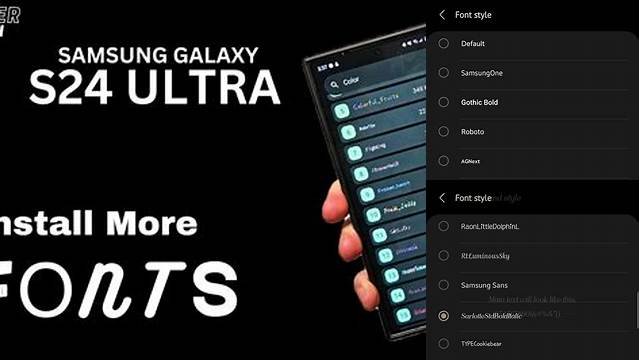
Best Fonts For Your Samsung S24 Ultra
Hey guys! So, you've just snagged the awesome Samsung S24 Ultra, and you're probably wondering how to make it truly yours. Beyond the killer camera and blazing-fast processor, one of the coolest ways to personalize your device is by changing the fonts. Yeah, that's right, the way your text looks on screen can totally change the vibe of your phone. We're talking about everything from your home screen icons to your text messages. The S24 Ultra, being a Samsung device, offers some pretty neat built-in options, and it also opens the door to even more customization if you know where to look. Think about it – a sleek, minimalist font can make your phone feel super professional, while a fun, quirky one can add a touch of personality. It’s all about setting the mood and making your daily interactions with your phone a little more enjoyable. Let's dive deep into finding the best fonts for your Samsung S24 Ultra and how to make them work for you. We'll explore the official Samsung Galaxy Store, some cool third-party apps, and even touch on how to install custom fonts if you're feeling a bit more adventurous. Get ready to give your S24 Ultra a fresh new look that perfectly matches your style!
Diving into Samsung's Built-in Font Options
Alright, let's start with the basics, guys. Your Samsung S24 Ultra comes with a pretty decent selection of fonts right out of the box. These are the easiest ones to access and are generally well-optimized for the display, so you don't have to worry about weird spacing or readability issues. To find these, you’ll typically navigate to Settings > Display > Font size and style. From there, you can tap on 'Font style'. You'll see a list of pre-installed fonts, and usually, there's a good variety to choose from. We're talking about classics like the default Samsung font, which is clean and modern, to more stylized options like Rosemary, Cool Jazz, or even the ever-popular Gothic. The great thing about these built-in fonts is that they are guaranteed to work seamlessly with your phone's interface. They're designed by Samsung themselves, so they integrate perfectly with One UI, meaning no pesky compatibility problems. Plus, they usually offer a good balance between aesthetics and readability, which is super important when you're spending hours on your phone. Exploring these options is a fantastic starting point for anyone wanting to tweak their S24 Ultra's look without venturing into more complex territory. Take some time to cycle through them – you might be surprised by how much a simple font change can refresh your entire user experience. Remember, the goal is to find a font that not only looks good to you but also makes reading texts, emails, and browsing the web a comfortable experience.
Exploring the Samsung Galaxy Store for More Fonts
Finding Free and Premium Font Delights
When you're scrolling through the Galaxy Store looking for the best fonts for your Samsung S24 Ultra, you'll notice a mix of free and paid options. It's awesome that Samsung offers so many free fonts – seriously, you can totally change up your phone's look without spending a dime. These free fonts are often just as stylish and well-designed as their premium counterparts. Look out for fonts with names that suggest their style, like 'Modern Sans' for a clean look, or 'Vintage Script' for something more classic. On the flip side, the premium fonts can sometimes offer that extra polish or unique design that’s worth the small investment. Think of them as a small treat for your phone! If you’re someone who likes to switch up your style often, sticking to the free options is a smart move. However, if you find a particular premium font that just speaks to you and fits your aesthetic perfectly, it might be worth grabbing. The pricing is usually pretty reasonable, often just a dollar or two. Before you buy, though, check out the preview images carefully. See how it looks in different sizes and applications (like messages or settings). Sometimes, there's a trial period or a way to preview it on your actual device, which is super helpful. Ultimately, whether you go free or paid, the goal is to find a font that makes your S24 Ultra look and feel amazing. Don't be afraid to download a few free ones to test them out before considering a purchase. It’s all about finding that perfect match for your personal style, guys!
Selecting Fonts Based on Readability and Aesthetics
This is a crucial point, guys: when choosing the best fonts for your Samsung S24 Ultra, you absolutely must consider both readability and aesthetics. It’s easy to get swept up in a cool-looking font, but if you can't read your messages easily, what's the point? Think about the primary purpose of your phone – it’s a communication and information tool. Therefore, legibility should always be a top priority. Fonts with clear, distinct characters, good spacing between letters (kerning), and a balanced x-height (the height of lowercase letters like 'x') tend to be the most readable. Sans-serif fonts, like Helvetica Neue, Roboto, or Open Sans, are generally excellent for digital screens because they tend to be clean and uncluttered. Serif fonts, like Times New Roman or Garamond, can add a touch of elegance and tradition, but some can become a bit fussy at smaller sizes on a screen. Handwritten or script fonts can be super stylish, but they are often the least readable, especially for quick glances or long reading sessions. So, when you’re browsing the Galaxy Store or looking at previews, imagine reading a long article or a lengthy text message in that font. Does it strain your eyes? Is it easy to differentiate between similar letters like 'l' and 'I' or '0' and 'O'? Balance is key. Find a font that has a unique aesthetic appeal but doesn't sacrifice clarity. A font can be beautiful and functional. Don't be afraid to test a font for a day or two to see how it holds up in real-world usage. Your eyes will thank you, and your S24 Ultra experience will be much better!
Font Pairings: Combining Styles for a Unique Look
Want to take your S24 Ultra customization to the next level, guys? Let's talk about font pairings. This is where you get a bit creative and combine different font styles to create a really unique look and feel for your phone. Most of the time, you'll be applying one font style across your entire system, but some apps or launchers might allow for more granular control. Even if not, you can think about pairings conceptually. For example, you might choose a clean, modern sans-serif font for your main system interface – think settings menus, notifications, and general system text. Then, perhaps you’d opt for a slightly more stylized, maybe a subtle serif or a more distinct sans-serif, for your home screen widgets or apps where you want a bit more visual flair. A popular approach is to pair a highly readable font for body text with a more distinctive font for headings or titles. This creates visual hierarchy and makes information easier to digest. Another classic pairing is a script font for a specific decorative element (used sparingly!) contrasted with a very simple, clean font for everything else. The key to successful font pairing is contrast and harmony. You want the fonts to complement each other, not clash. Generally, pairing a serif with a sans-serif works well, or pairing two sans-serifs with different weights or styles. Avoid pairing two highly decorative or script fonts together, as it can quickly become overwhelming and unreadable. Experimentation is your best friend here. Browse through design inspiration online, see how designers pair fonts in print or web, and then try to translate that to your S24 Ultra. It’s a fun way to really personalize your device beyond just picking a single font.
Understanding Font File Types: TTF and OTF
When you venture into the world of installing fonts manually or using third-party apps for your best fonts for Samsung S24 Ultra journey, you'll inevitably come across font file types. The two most common ones you'll encounter are TTF (TrueType Font) and OTF (OpenType Font). Both are widely supported and function similarly for most users. TTF fonts were developed by Apple and Microsoft and are a standard for most operating systems. They are generally reliable and render text clearly. OTF fonts, on the other hand, are a more modern and advanced format, an extension of the TrueType format. They often contain more sophisticated typographic features, such as ligatures (where two or more characters merge into a single glyph), alternate characters, and support for a wider range of languages and symbols. For the average user on their S24 Ultra, the difference between TTF and OTF might not be hugely noticeable in everyday use. Both will display text beautifully. However, if you're dealing with very specific design needs or advanced typographic controls, OTF might offer more possibilities. When downloading fonts from unofficial sources, you'll usually see them offered in either TTF or OTF format. Both should work fine with most font installer apps or custom launchers designed for Samsung devices. Just ensure the app or method you're using supports the file type you download. It's good to know what you're downloading, even if the practical difference is minimal for most of us!
Potential Risks of Unofficial Font Sources
Let's get real for a sec, guys. When we talk about finding the best fonts for your Samsung S24 Ultra outside the official channels, we gotta discuss the potential risks. Sticking to the Galaxy Store is like shopping at a reputable department store – safe and reliable. Going to random websites for fonts is more like browsing a flea market; you might find a gem, but you also might find something dodgy. The biggest risk is malware. Some websites might bundle font files with viruses or spyware. Once installed, these could compromise your phone's security, steal your personal data, or just make your phone run sluggishly. Another issue is stability. Unofficial fonts might not be perfectly optimized for your S24 Ultra's specific Android version or One UI. This can lead to apps crashing, text not displaying correctly (think weird characters or spacing), or even your phone becoming unstable. Sometimes, installing a bad font can mess with your system settings, making it difficult to revert back to a normal font without a factory reset – a major headache! Always, always be skeptical. If a site looks shady, offers fonts that seem too good to be true, or asks for excessive permissions, steer clear. Your phone's security and your sanity are worth more than a fancy font. Stick to known sources and be prepared for potential troubleshooting if you venture off the beaten path.
Ensuring Font Compatibility with One UI
When you're hunting for the best fonts for your Samsung S24 Ultra, compatibility with Samsung's One UI is paramount. One UI is Samsung's custom interface layered on top of Android, and it has its own specific ways of handling fonts. This is why fonts downloaded from the official Galaxy Store are generally so seamless – they're designed with One UI in mind. They integrate perfectly, ensuring that menus, apps, and system text all look consistent and render correctly. When you start using third-party font installers or downloading fonts from less reputable sources, compatibility becomes a question mark. A font that looks amazing in a preview image might display garbled text, weird line breaks, or just look plain wrong within your S24 Ultra's interface. Some fonts might not support special characters needed by One UI or certain apps. Others might have issues with specific font weights or styles. This is why reading reviews or checking community forums (like XDA Developers) is crucial if you're using unofficial methods. People often share their experiences with specific fonts or installer apps, noting whether they worked well with their Samsung device. If a font installer app promises to work on